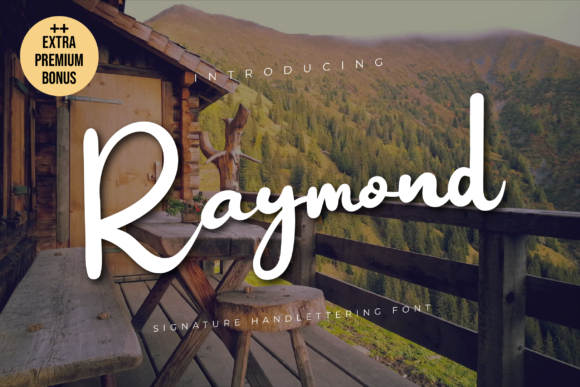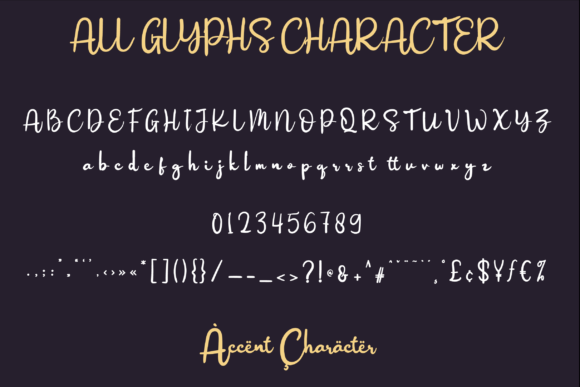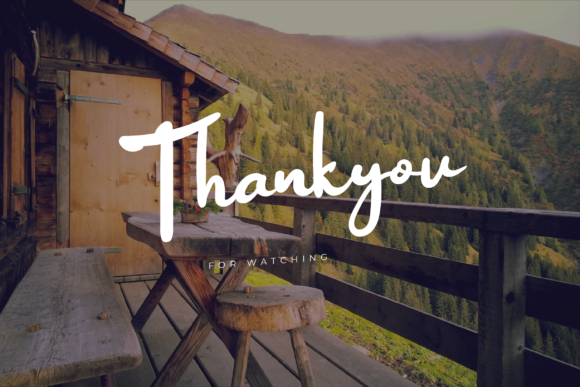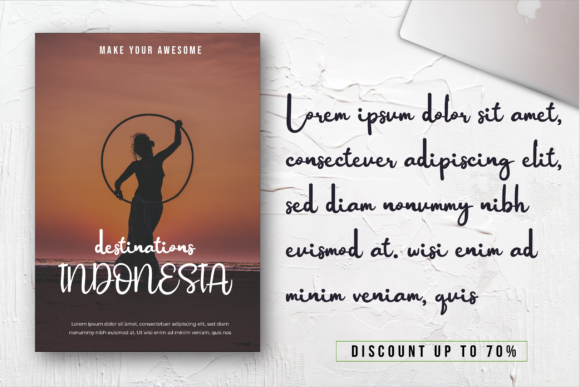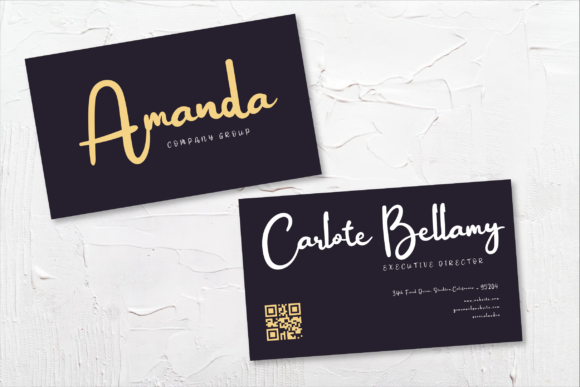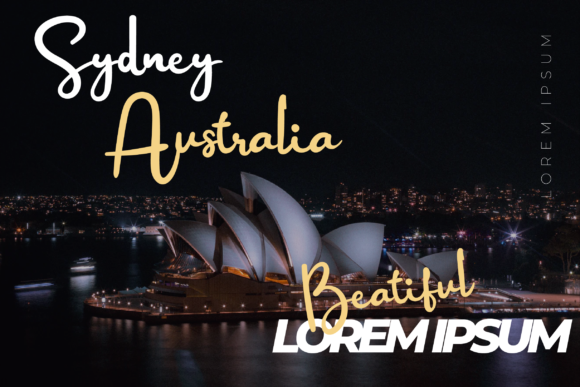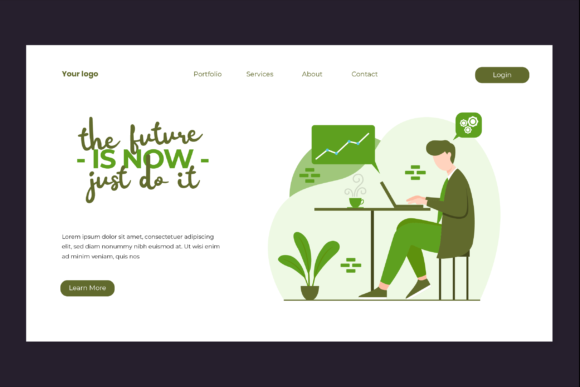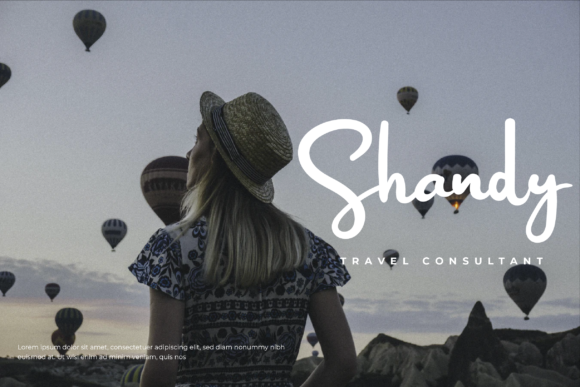
Raymond Font
Introducing “Raymond,” a flowing handwritten font that embodies elegance and distinctive style. Its captivating allure makes it an ideal choice for a wide range of design projects, infusing a touch of sophistication and uniqueness into every creation. Whether you’re working on branding, quotes, invitations, or any other design, “Raymond” invites you to fall in love with its timeless charm and create truly spectacular designs.
With “Raymond,” you have a font that flows with graceful fluidity, evoking an air of refined handwriting. Its authentic handwritten style brings a sense of personal touch and individuality to your designs, creating a visual experience that is both elegant and captivating. Whether you’re crafting branding with a touch of class, expressive quotes, or inviting invitations, this font adds a layer of beauty that captures attention.
The versatility of “Raymond” lies in its ability to seamlessly complement various design styles and themes. Its flowing and elegant appeal makes it a dependable choice for all your creative endeavors that seek to convey sophistication and originality.
Unleash your creativity and witness how “Raymond” enhances your designs with its refined and distinct touch. Whether you’re designing sophisticated logos, creating expressive stationery, or producing captivating social media graphics, this font will infuse your work with a sense of elegance and allure that leaves a lasting impression.
So, embrace the allure of “Raymond” and let it become a signature element in your design toolkit. Allow its flowing and timeless style to inspire your designs, transforming them into spectacular works that stand out from the crowd. Whether you’re an experienced designer or an enthusiastic creator, “Raymond” empowers you to craft visuals that exude sophistication and make a statement. Let “Raymond” be the key to unlocking the elegance and distinctiveness in your designs, and watch as it elevates your projects to new levels of excellence and sophistication!